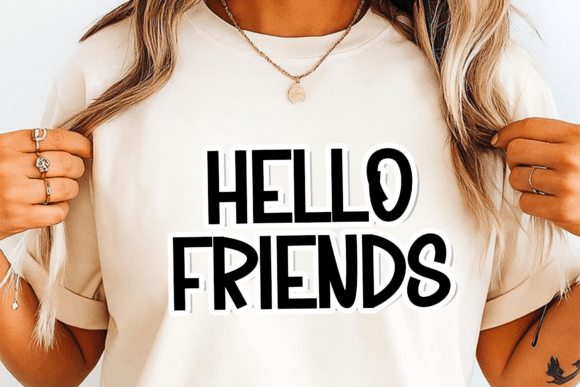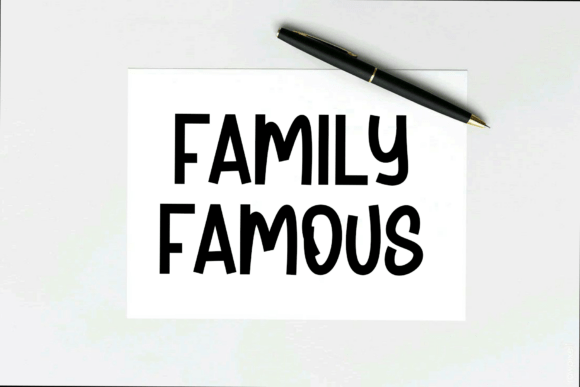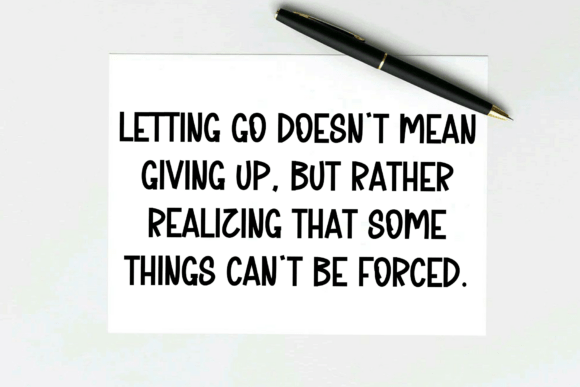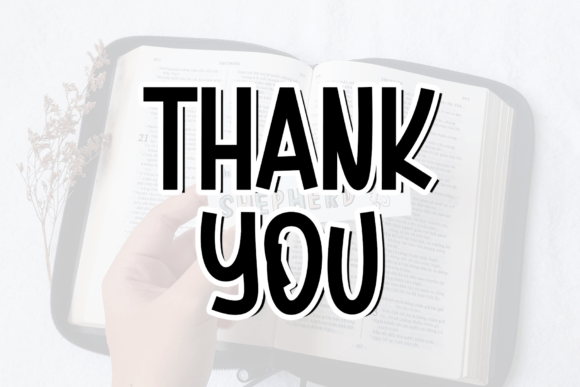
The Bookmark Font: A Friendly and Versatile Companion for Your Design Projects
I’ll never forget the time I was working on a branding project for a new coffee shop, and I just couldn’t find the right font. The client wanted something modern, yet approachable; clean, yet playful. I scoured the internet, tried out dozens of fonts, but nothing seemed quite right. That was until I stumbled upon the Bookmark font. ✨
Its clean shapes, soft edges, and well-balanced letterforms immediately caught my eye. I knew right then and there that it was the perfect fit for the project. And as I started using it, I realized that it was more than just a pretty face – it was incredibly versatile, easy to read, and added a fresh and friendly touch to the entire design.
An Honest Review of Bookmark Font
- ✨ Modern simplicity: Bookmark font has a sleek, modern look that’s perfect for designs that need a bit of sophistication.
- ✅ Playful vibe: The soft edges and rounded shapes give it a playful, approachable feel that’s great for brands that want to seem friendly and relaxed.
- 💡 Excellent readability: The font is clear and easy to read, even at small sizes, making it perfect for body text or captions.
- 🎨 Versatile character: Bookmark font works well in a variety of design contexts, from posters and branding to packaging and social media graphics.
While I absolutely love the Bookmark font, there are a few things to keep in mind: ⚠️
- 🤔 Limited serif options: As a sans-serif font, Bookmark doesn’t have a lot of serif options, which might limit its use in certain design contexts.
- ⚠️ Not ideal for body text: While the font is readable, it’s not the best choice for long blocks of body text – it’s better suited for headings, titles, and captions.
The Story Behind Bookmark Font
The Bookmark font was designed with the goal of creating a friendly, approachable font that would work well in a variety of design contexts. Its creator was inspired by the idea of a “bookmark” – something that helps you keep your place, and comes back to you again and again. With its clean shapes and soft edges, the Bookmark font is designed to be a reliable companion for your design projects.
Q: What is the Bookmark font best used for?
A: The Bookmark font is ideal for posters, branding, packaging, and social media graphics – anywhere you need a friendly, modern touch.
Q: Is the Bookmark font suitable for body text?
A: While the font is readable, it’s not the best choice for long blocks of body text – it’s better suited for headings, titles, and captions.